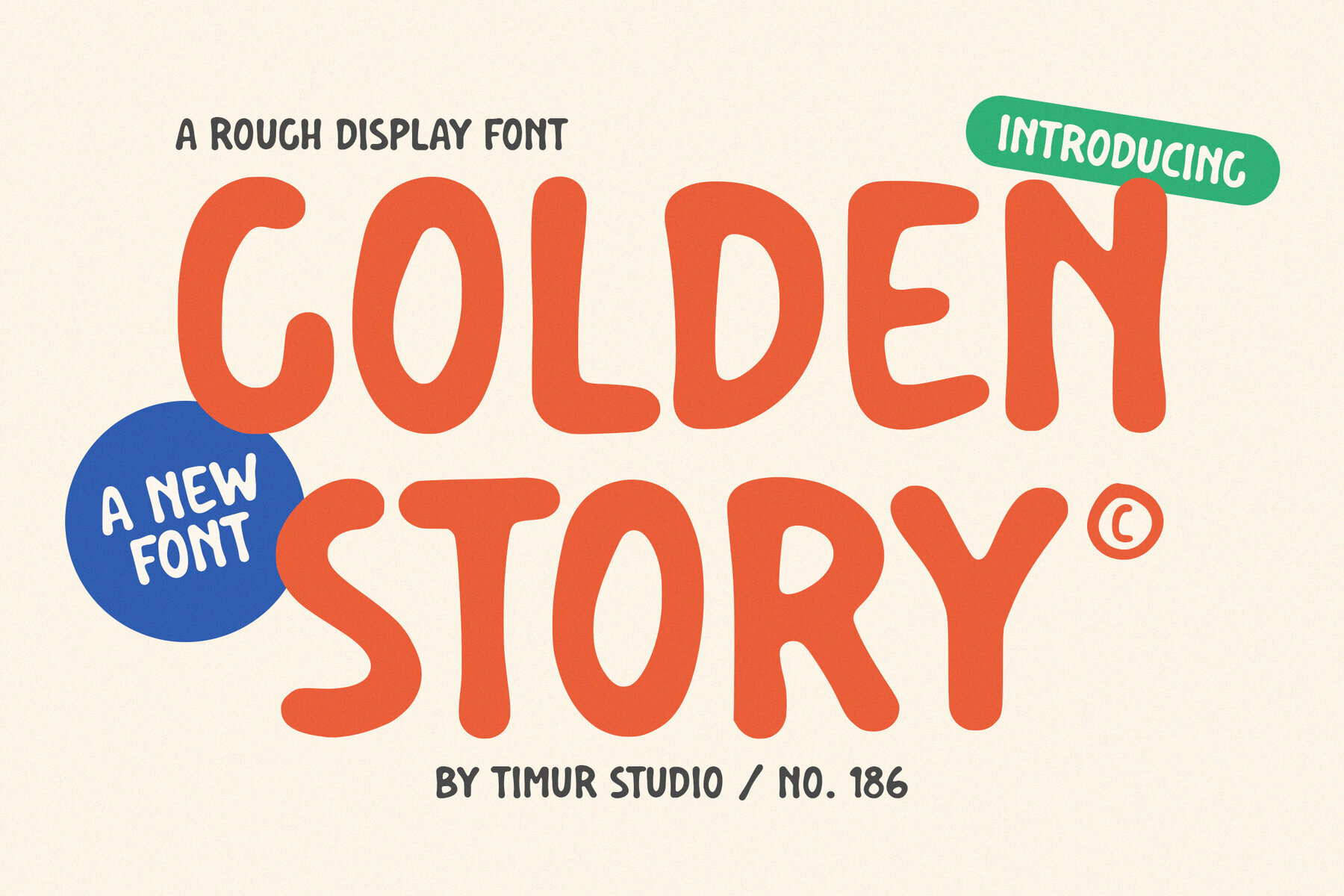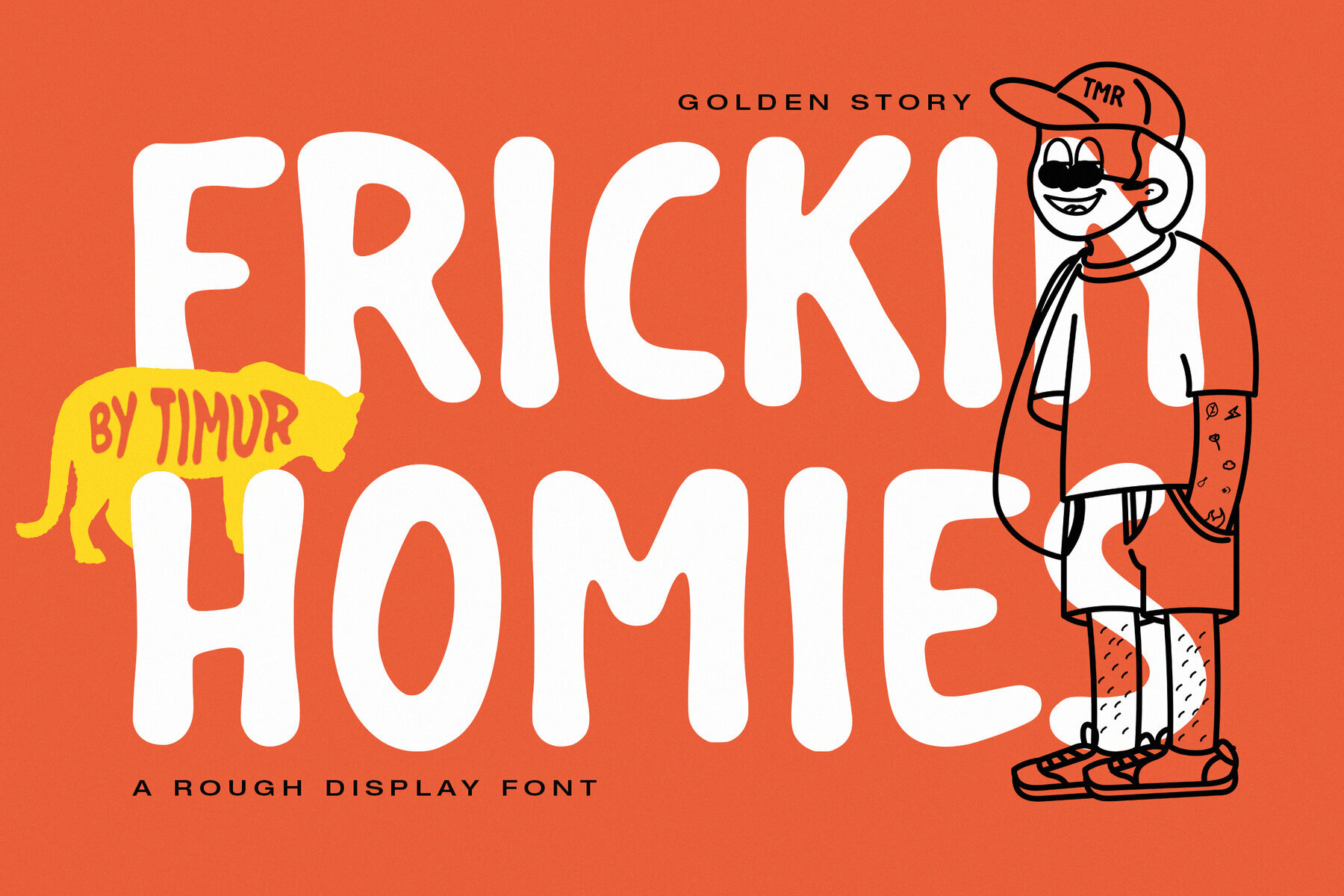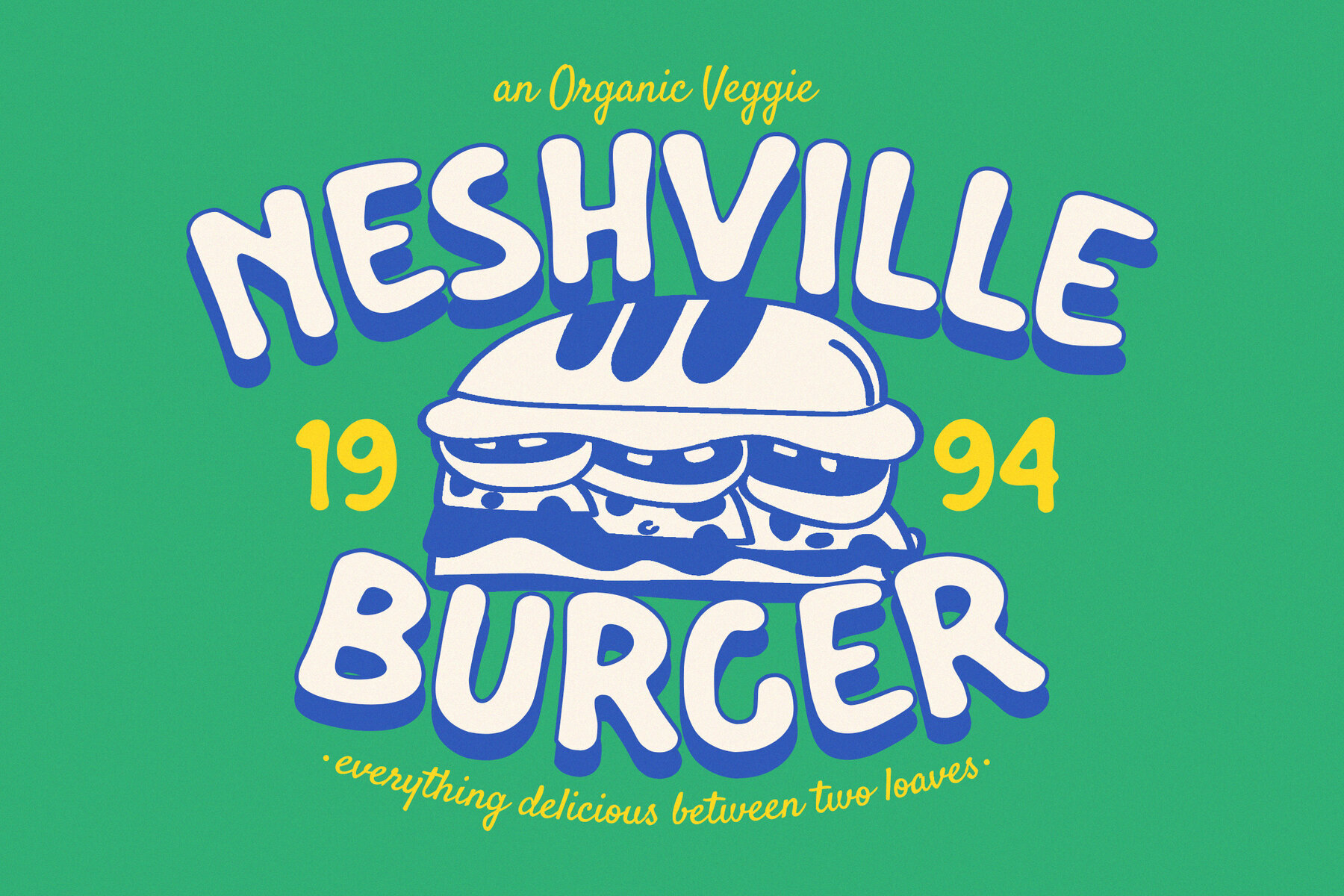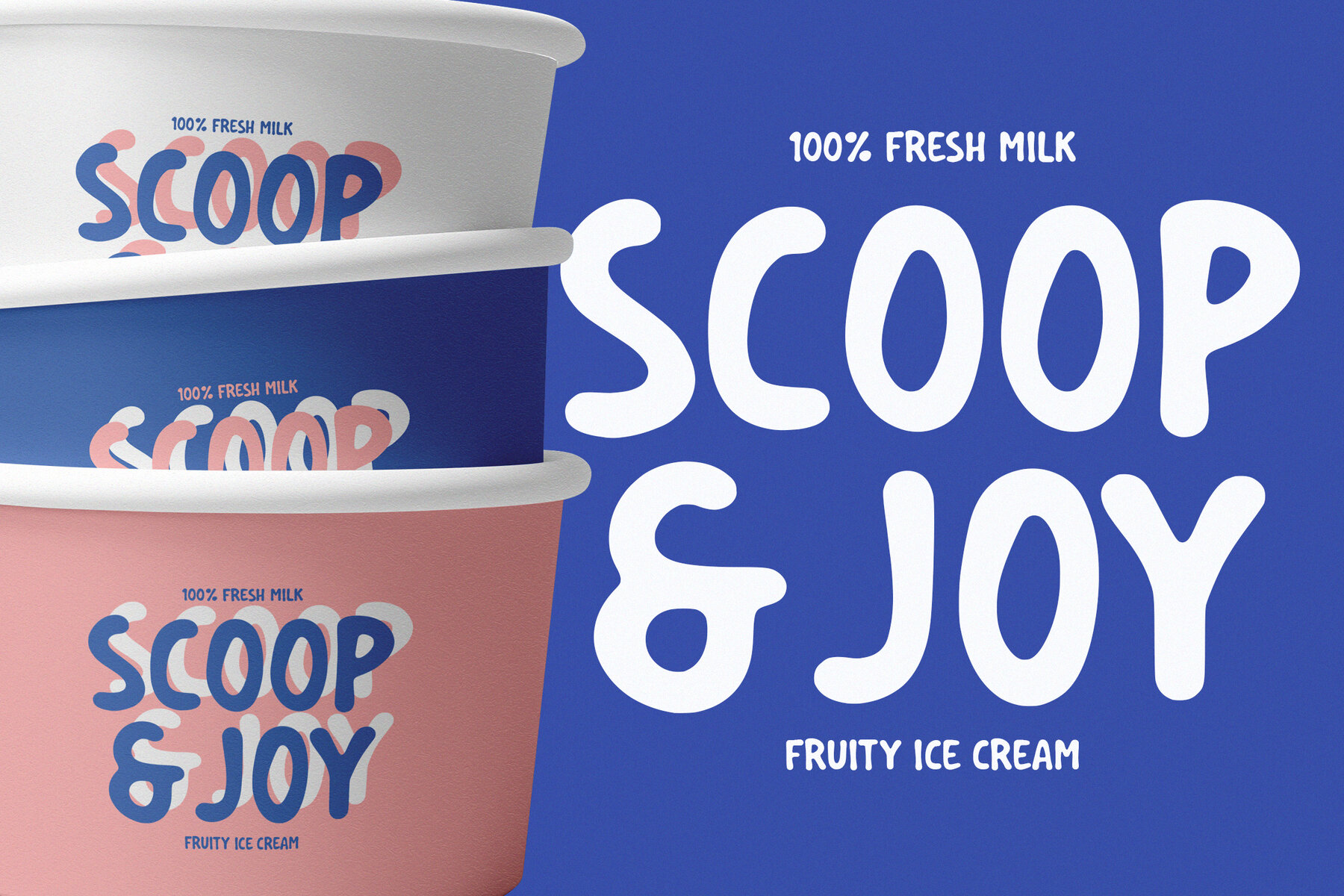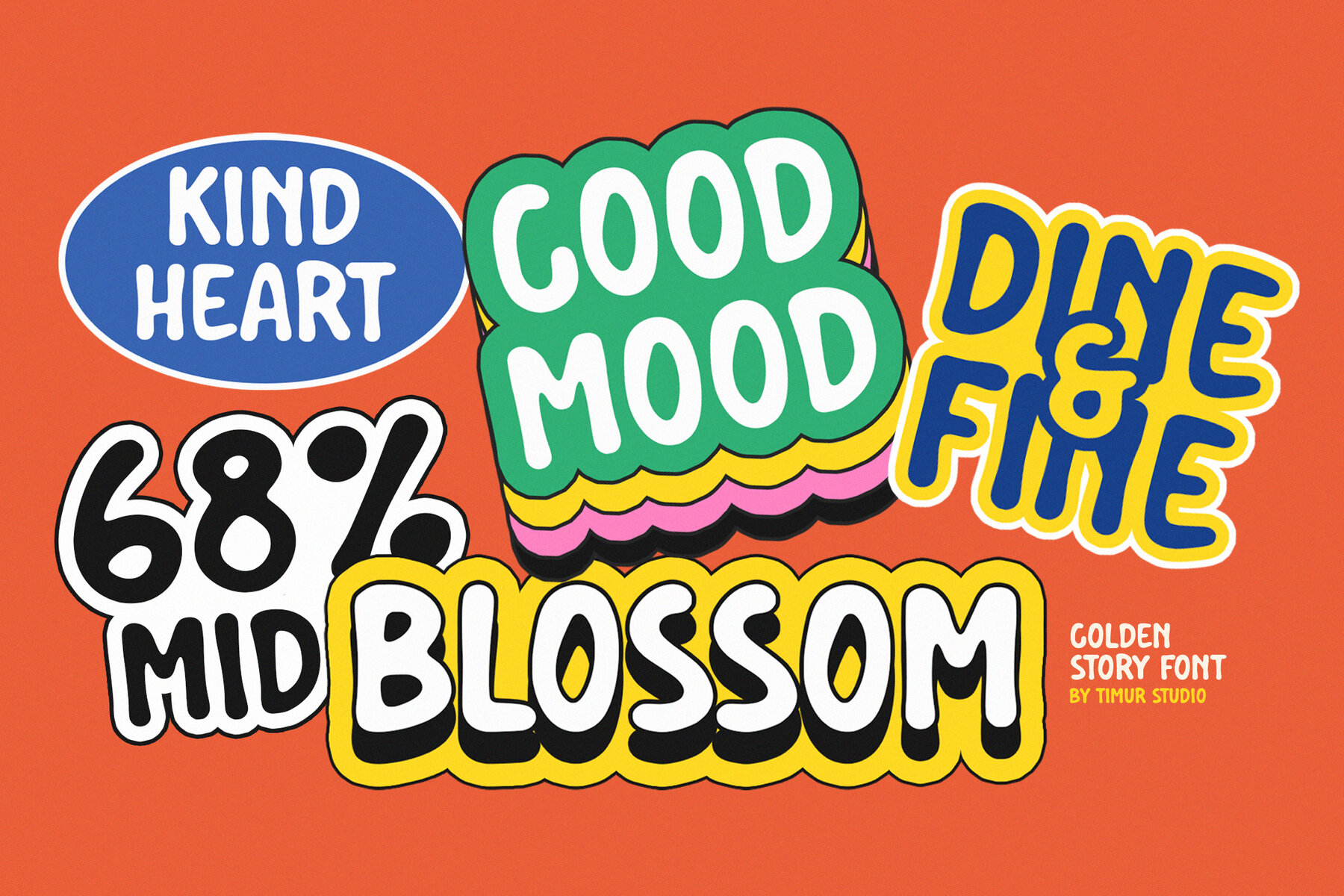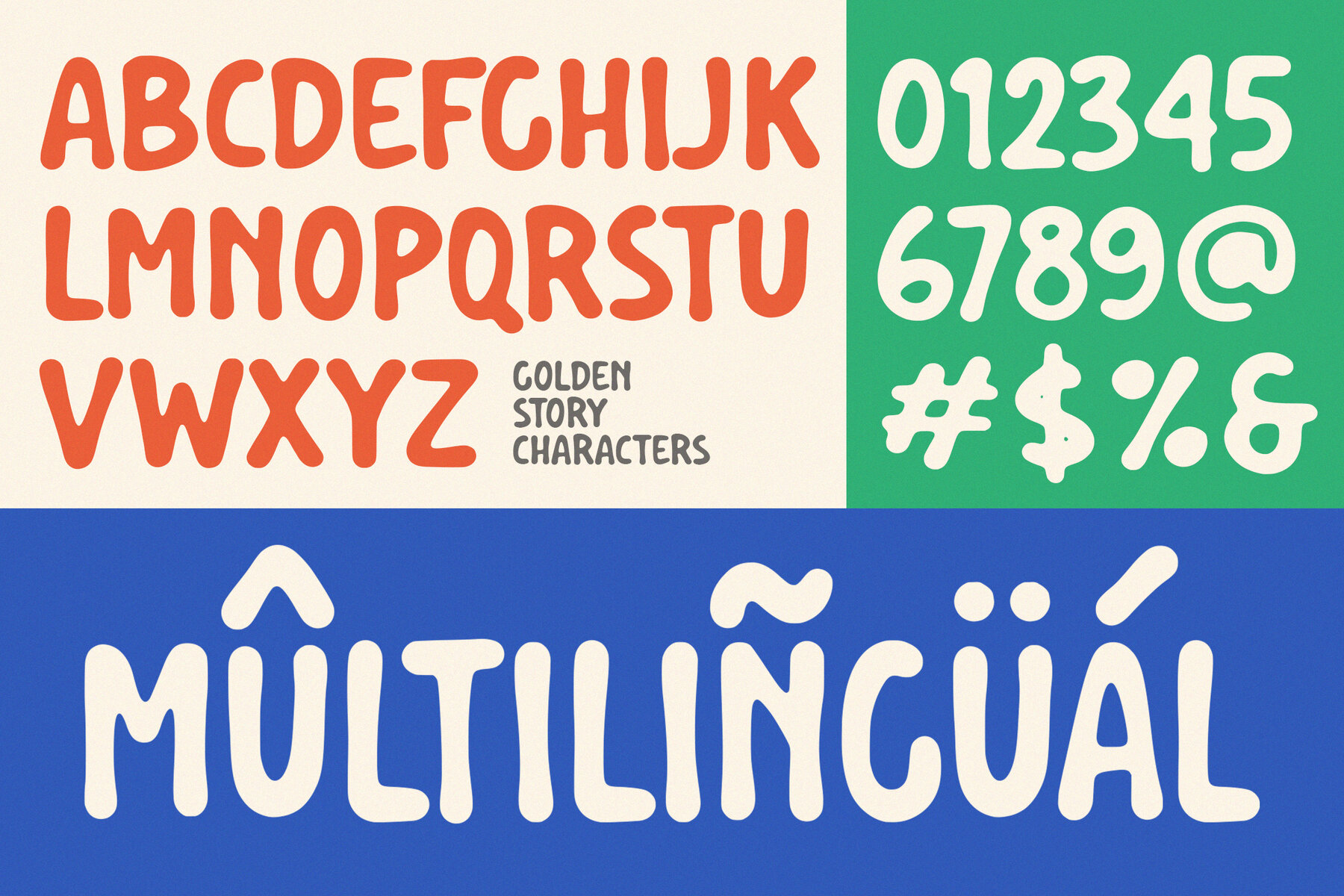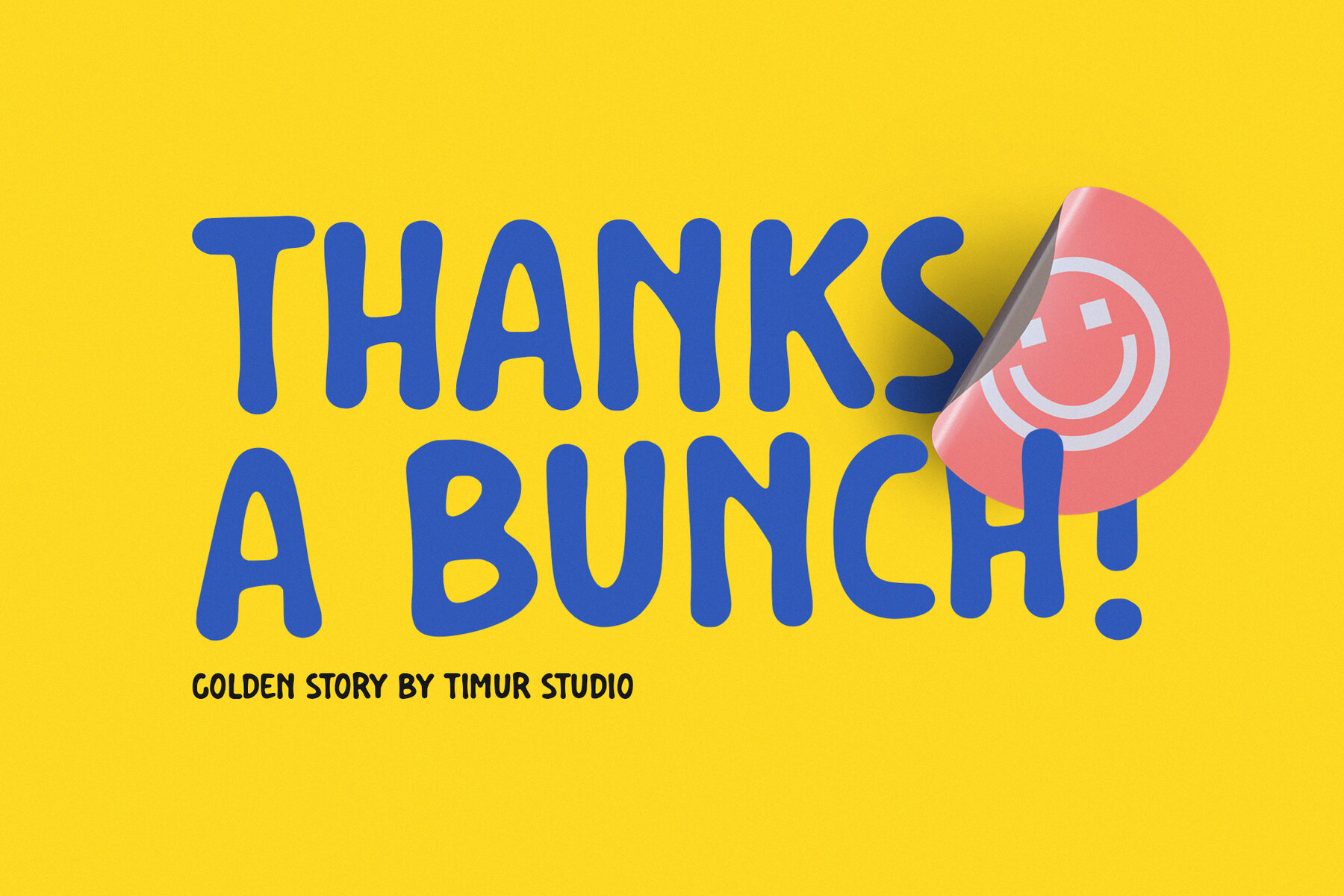
Golden Story Font
Golden Story
Golden Story is a rugged, bold display font perfect for making a strong statement in your design projects. Its textured, weathered letterforms provide an authentic, raw feel. Ideal for creating a vintage or distressed aesthetic, this font adds character and grit to posters, album covers, and branding materials, making your work stand out with a unique and memorable touch.
Whether you aim for a nostalgic retro vibe or a more contemporary edgy look, Golden Story delivers versatility and impact. Embrace its rough, dynamic energy to bring a timeless appeal and narratively rich element to your designs. Perfect for designers seeking to imbue their projects with raw, storytelling power, Golden Story is a compelling choice for a variety of creative applications.